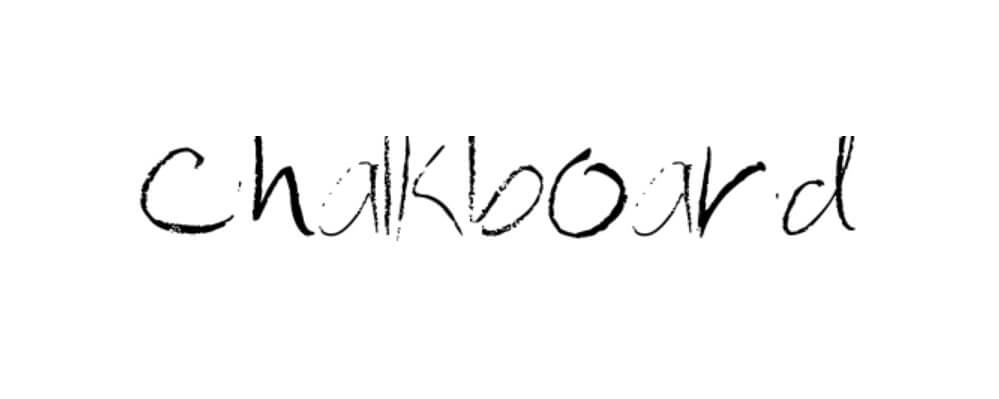
Chalkboard font is a handwritten font designed by Marta van Eck. This Font is perfect for making illustration videos, blog site, logo design and many more other design tasks. This font is perfect for making your logos, or for any artistic tasks.
Most of the interesting thing about this font is that it has its own beautiful texture which can attract anyone. Here we share chalkboard for free and you just need a single click to have it on your device.
Chalkboard Font Family